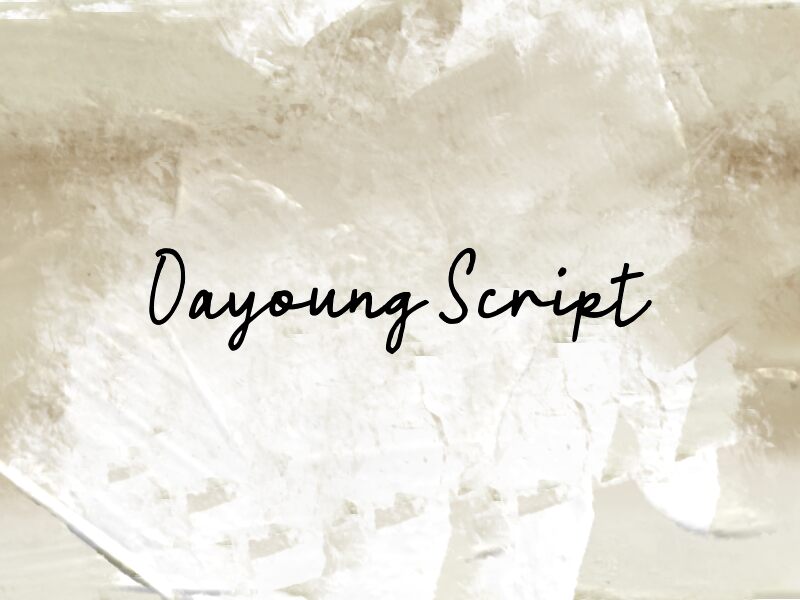
Oayoung Script font by wep presents a free, handwritten font designed to add a personal, expressive touch to your creative projects. With an inviting and relaxed charm, this font is perfect for those seeking an elegant yet modern typeface. The flowing, informal appearance makes it especially appealing for projects that aim to convey warmth and individuality.
The Oayoung Script font shines in a variety of contexts, making it suitable for quotes, cards, menus, letters, and posters. Its handwritten quality lends itself well to branding, greeting cards, and product packaging. Additionally, it’s ideal for adding a personalized flair to social media posts, stationery, and wedding invites.
Oayoung Script is a beautifully crafted free font perfect for a variety of creative projects. Whether you are designing invitations, posters, or branding materials, this elegant script font adds a touch of sophistication and style. With its fluid strokes and unique character design, Oayoung Script stands out and enhances any visual composition.